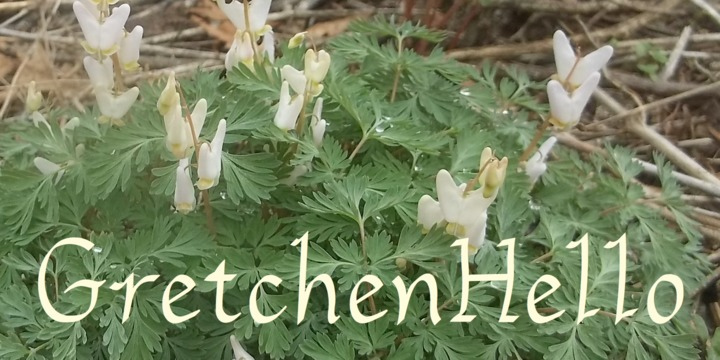
GretchenHello Font
GretchenHello Font is perfect for personalized greeting cards, friendly business correspondence, welcoming website headers, casual café signage, boutique retail branding, personal blog designs, social media graphics, and warm hospitality marketing where approachable friendliness and personal connection are essential.
What makes GretchenHello Font so exciting is its charming ability to convey genuine warmth and personal invitation through handwritten-style letterforms that embody the authentic friendliness of a heartfelt greeting while maintaining excellent readability. The welcoming character design reflects the sincere hospitality and personal touch that makes first impressions truly memorable.
The GretchenHello Font family includes regular, bold, and script variants, with friendly decorative elements and welcoming ornaments that provide comprehensive tools for creating approachable branding and personal connection design systems.
The font's handcrafted character variations and personal touches create immediate associations with friendly greetings and genuine human connection. Each letterform has been designed to evoke the warmth and sincerity that makes personal interactions meaningful and memorable.
GretchenHello Font excels in creating welcoming brand experiences that make customers feel personally valued and genuinely appreciated. The typeface's friendly personality makes it ideal for small businesses, personal service providers, and hospitality organizations emphasizing authentic human connection.
From neighborhood cafés to personal service businesses, this font brings genuine warmth that resonates with customers seeking authentic personal attention and friendly service experiences. The versatile design maintains its welcoming character across both traditional print materials and modern digital customer interaction platforms.